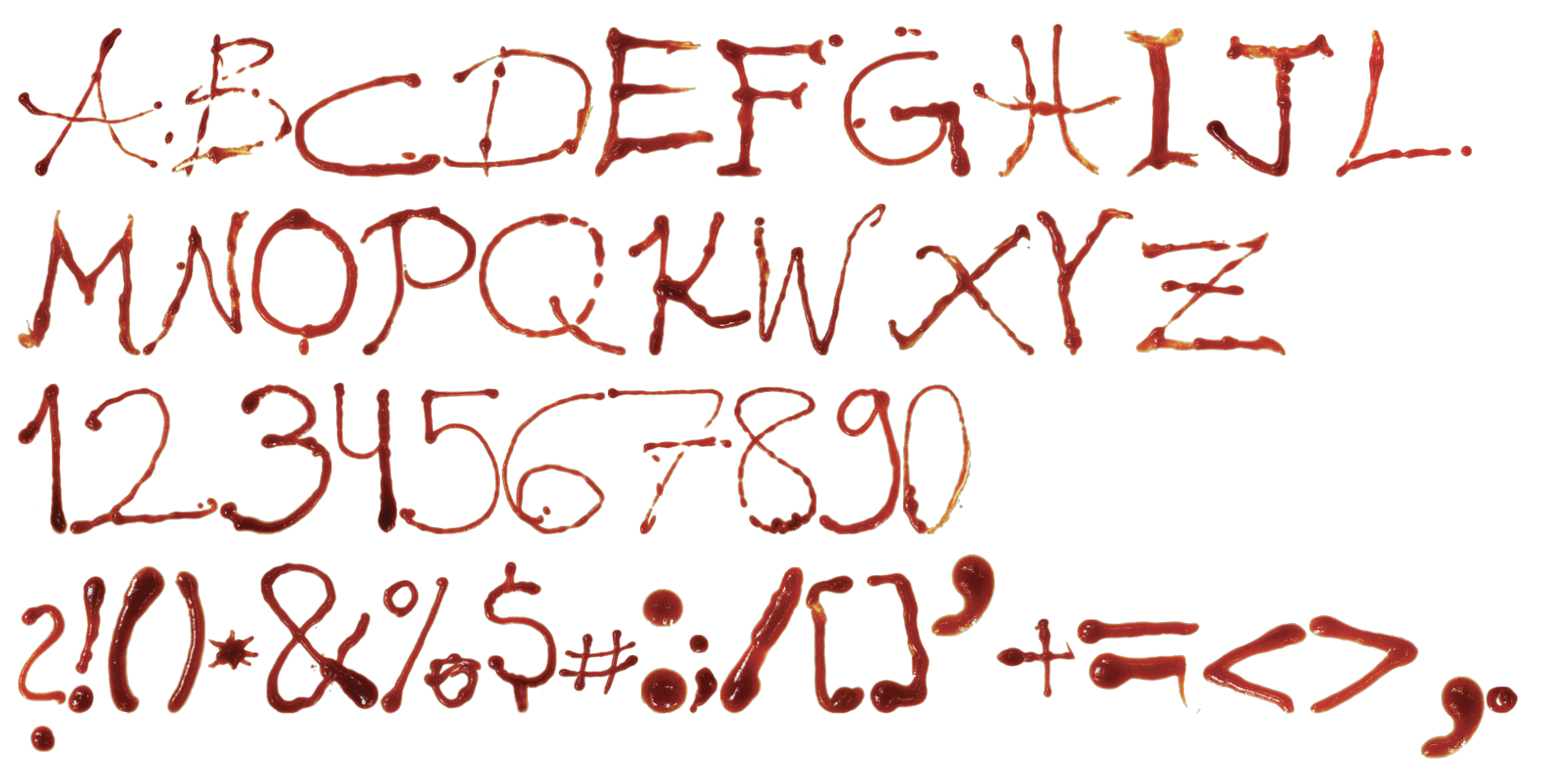
5. HOT LIKE PEPPER
HOT LIKE PEPER is a super spicy, slightly chaotic font that looks like someone squeezed chilli sauce all over the page and hoped for the best. The letters are thin, messy, and definitely a bit out of control. It’s the kind of typeface that shouts “SPICY!” even when you’re just trying to read a normal word. Perfect if you want your text to look like it needs a glass of milk.